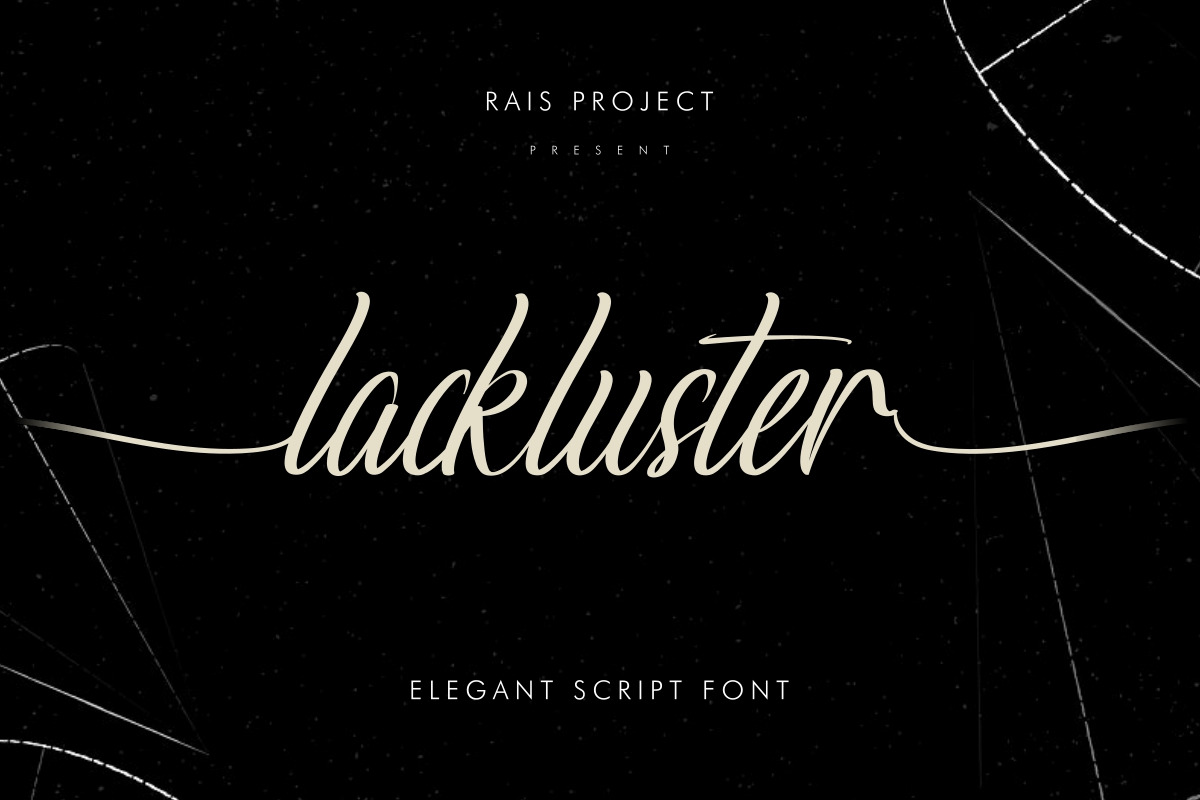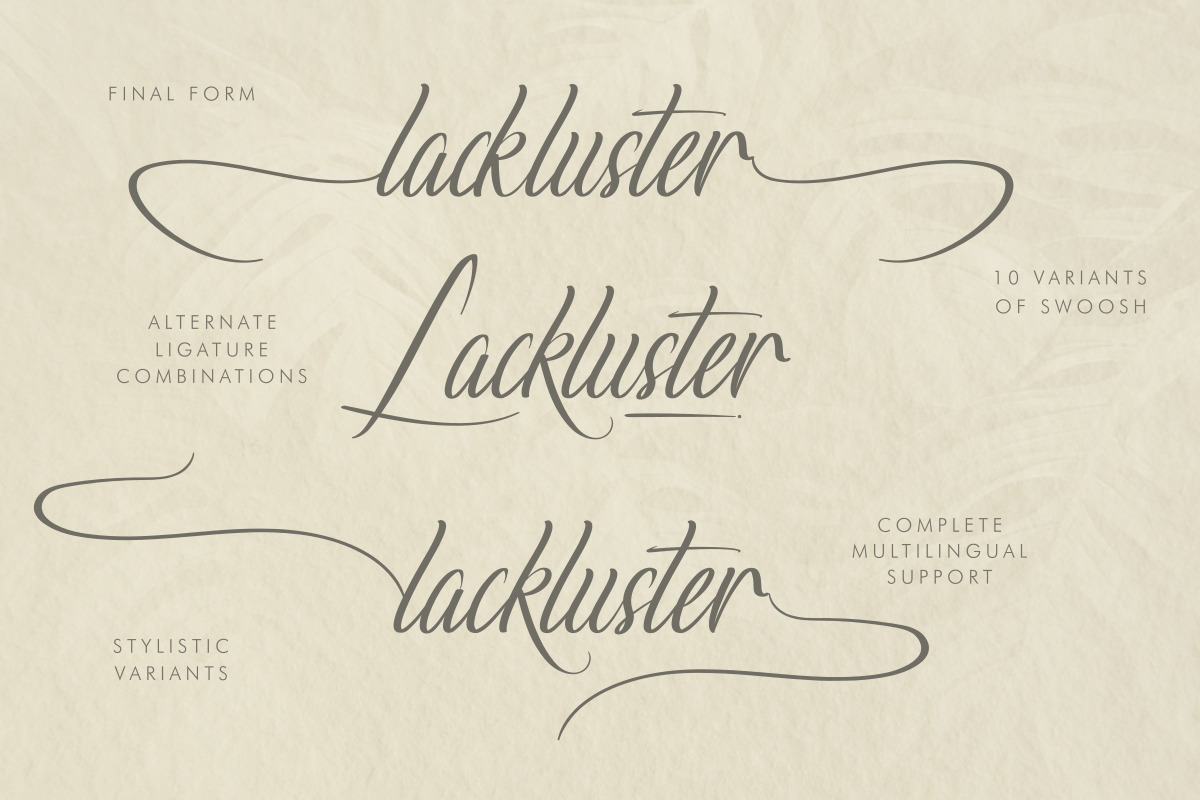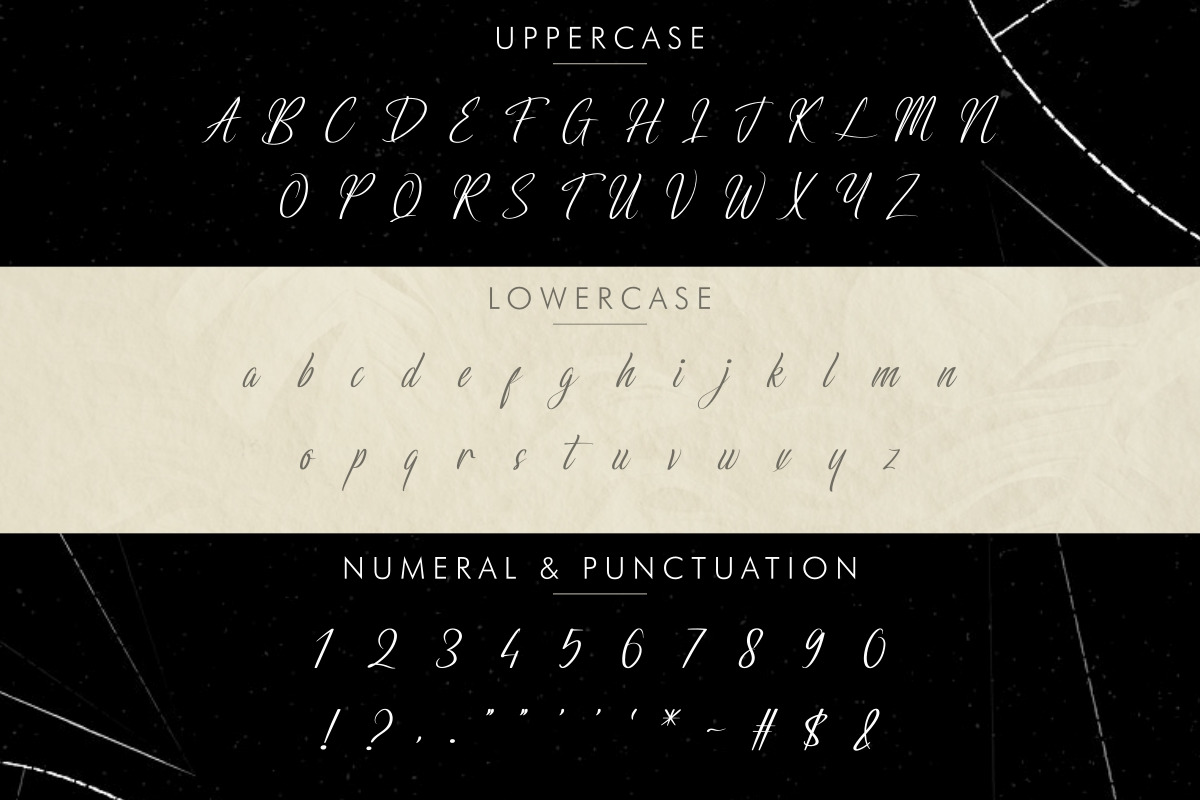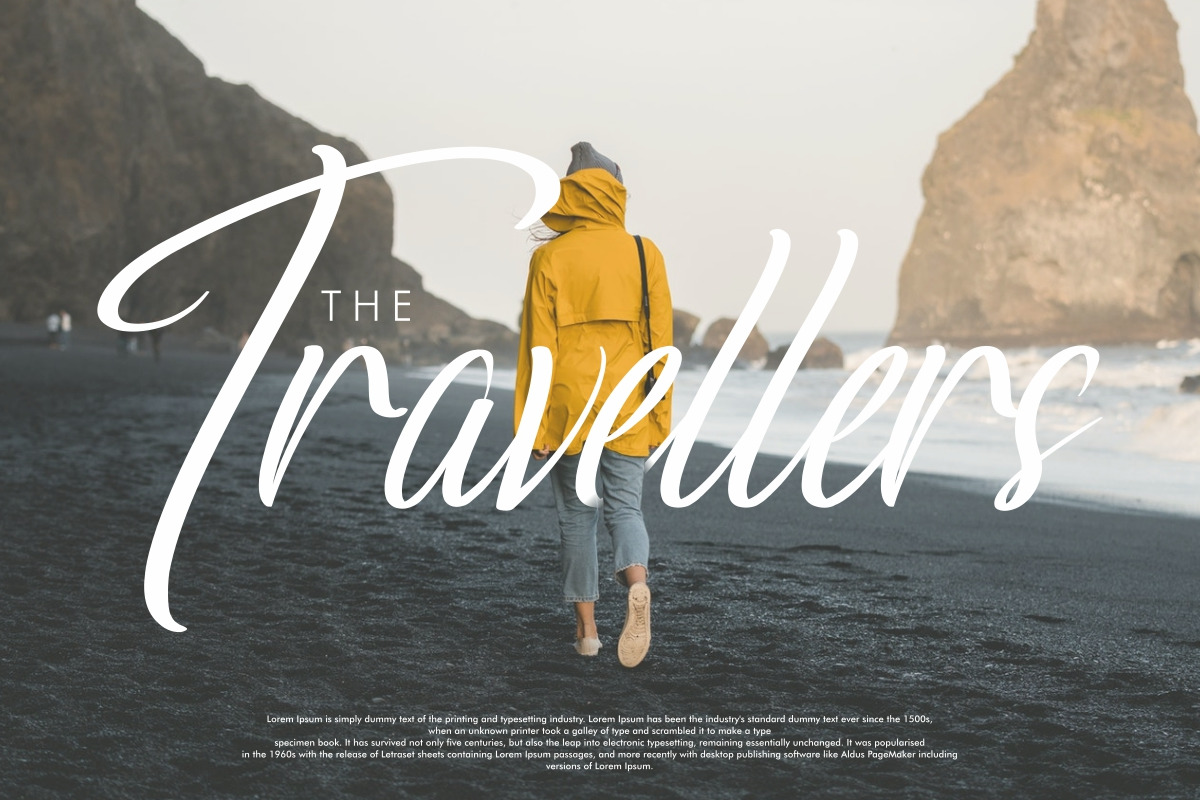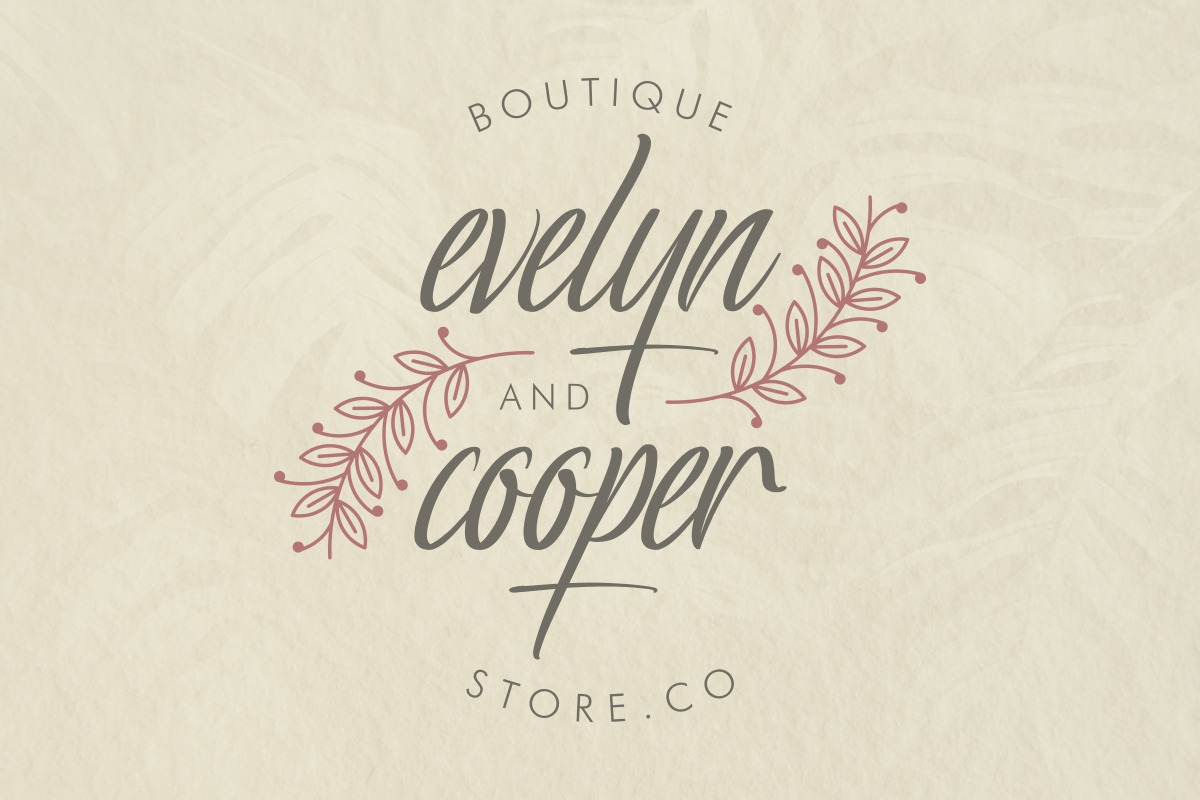
Lackluster Font
It is a script font with calligraphic style. This calligraphic style font will be awesome for many projects such as wedding, invitation, watermark, logotype etc. The font was handcrafted for any your special projects including : weddings, promotion, events, branding, advertising, magazine, shopping, signage, invitation, stationery, social media posts, product packaging, product designs, label, photography, watermark or and any projects that need calligraphy handwriting style.
All lowercase letters include beginning and ending swashes, giving realistic hand-lettered style.